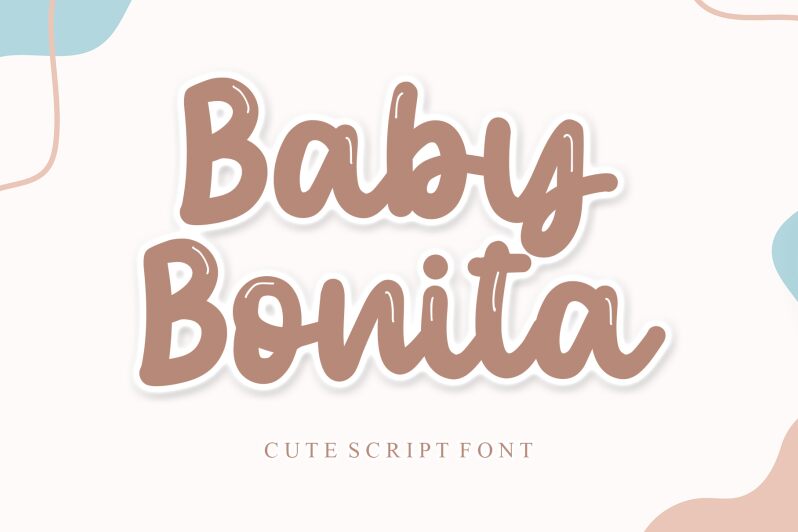
Baby Bonita font, crafted by Letterafa Studio, radiates an enchanting charm that makes it a standout choice for creative designs. Its playful brush style showcases fluid curves and whimsical strokes, creating a lively yet refined aesthetic. The font's bold presence ensures it captures attention without overwhelming the viewer, striking a perfect balance between flair and readability.
Ideal for branding, invitations, or children's products, Baby Bonita infuses warmth and joy into any project. Its inviting design lends itself beautifully to both casual and festive themes, making it versatile across various applications. Whether gracing a logo or enhancing packaging, this delightful font brings a touch of spirited elegance that resonates with audiences of all ages.